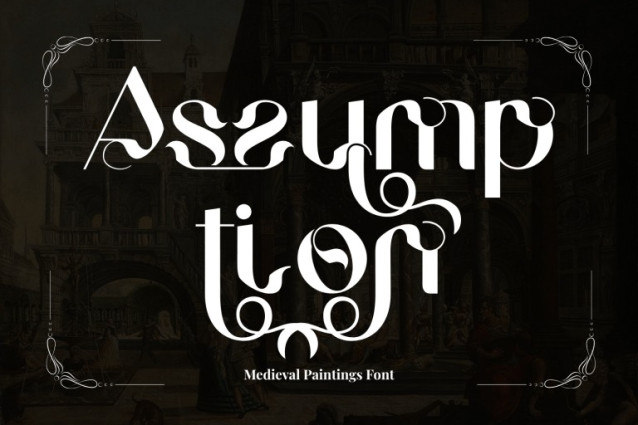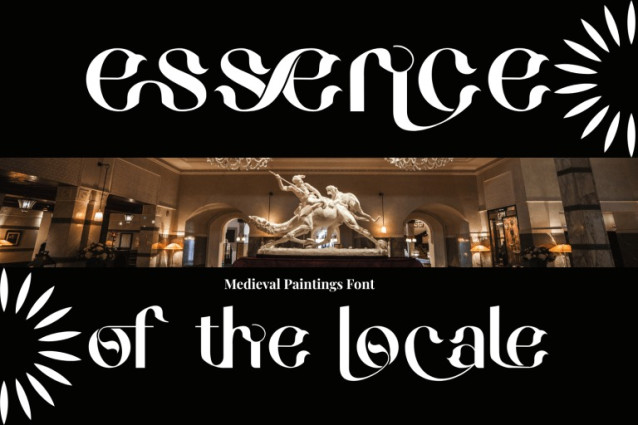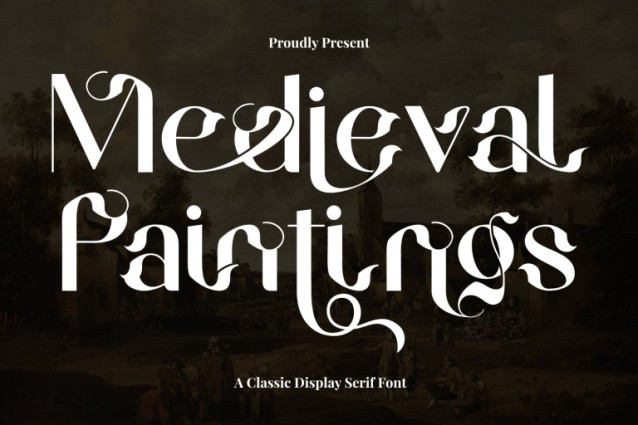
Medieval Paintings Font
Medieval Paintings – Gothic Sans Font is a stunning display sans-serif font that blends Gothic influences with elegant calligraphic touches. Its tall letterforms are enhanced by dramatic contrast between thick and thin strokes, while ornamental swashes and flowing curves add a decorative, medieval-inspired flair. This font captures a sense of artistry and timeless sophistication, making it an excellent choice for book covers, branding, editorial design, posters, and other creative projects that demand a bold and luxurious typographic statement.
Uppercase & Lowercase Letters
~100 Special Ligatures
Unique futuristic glyph styling
🔤About 100 ligatures combined with Stylistic Alternates Font: